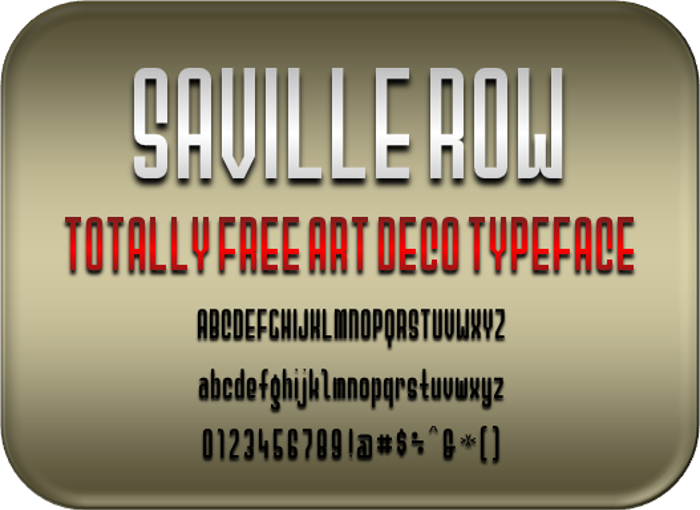
Saville Row NBP Font
A narrow design inspired by the Art Deco style. Based somewhat on BrightonTwo but with more Deco influence.
13 years ago@ByTheButterfly LMAO If you open that poster in MS Paint and invert the colours, that was the original colour scheme. I decided I liked this one better.... 😉
13 years ago@WolfLambert It kind of already is italicised but if you really want to, go ahead.
13 years agoNate, would you please consider adding an "æ" and a few other ligatures? Great work amigo!
13 years ago@Spacini Done and done 😄